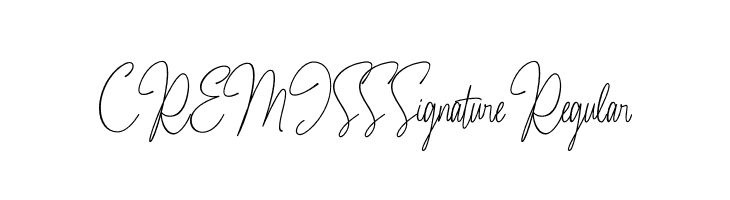
An elegant, flowing script font with smooth, cursive strokes.
A cursive, elegant font with flowing, connected characters.
An elegant and flowing script font with decorative uppercase and smooth lowercase letters.